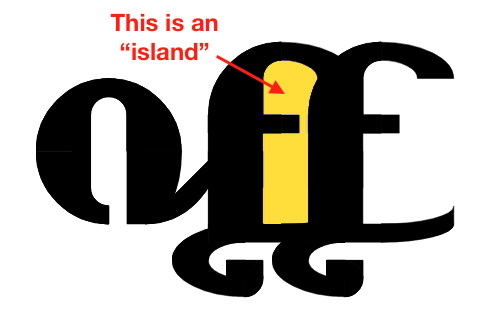
Nice font Zhalgas :)
Aroth connected?
Beautiful, with Arabic flavor. Could the f do with a cross stroke?
Well, yeah, it is Aroth connected, but I made it without cloning Aroth for some unknown reason :). Why Aroth? I think it has some fresh shapes not always seen on FS. I've been trying to connect glyphs of Aroth since competition's announcement, but failed so many times. Today I somehow achieved it, and maybe this entry won't count since it was based on a previous work, but anyway, it's not entirely about the competition.
For me, this comp's theme is much more difficult and complex than the previous stencil theme.
There are some fancier versions of b,h,k on numbers, temporarily.
Beautiful font, the stroke under w and above m give it an elegant touch of Arab and there is great flow in the descender's link to the next letter.
We (who use cyrillics) sometimes put those strokes when writing ш, т, so that they wouldn't be confused with и, п when writing let's say тт, титт, шиш, ппи, and it goes on.
I didn't realize the arabic feel until you eagle-eye guys noticed it :). Thank you!
Has a really nice fantasy feel to it, and it flows great! Awesome :)
A beautifully flowing design. 10/10
I love this Jalgas. Strong sample
Wow, wise words!! And greaaat font too :)
Wickedly stylish. I love your use of propeller bricks in the connections and the implied dimensionality of the bridged loops. Script and stencil. Nice! 10/10
Thanks, will. And oops, I meant scriptcomp in the sample, ill change it tomorrow.
This is beautiful. If you want to make it perfect, you can do the "post-production" works in a font editor (e.g. FontLab) with relatively little effort. You may add Open Type features, such as contextual ligatures, as well. 10/10
Fantastic. I am really glad Jalgas is in the winner’s circle! :)
Congratulations on being a Script Competition winner, architaraz! Here’s the sample I made for the results blog post, posted here for posterity.